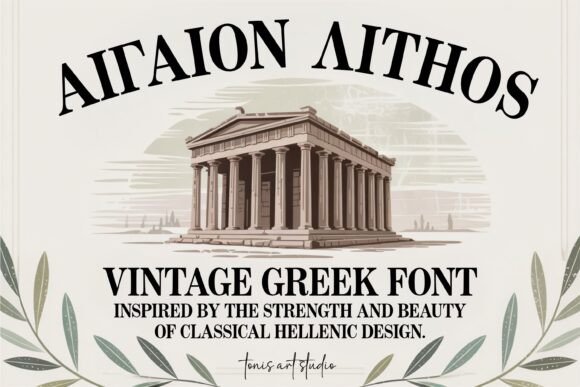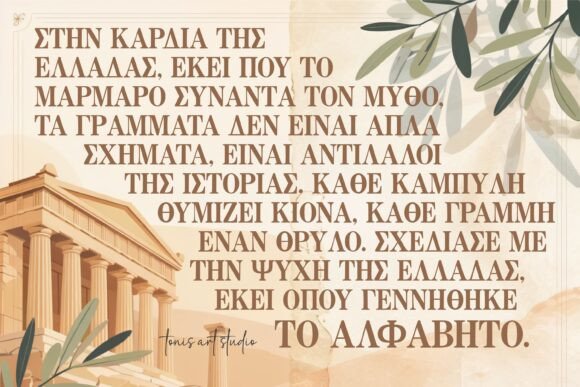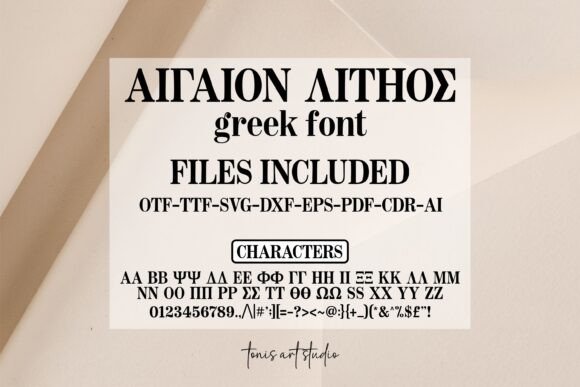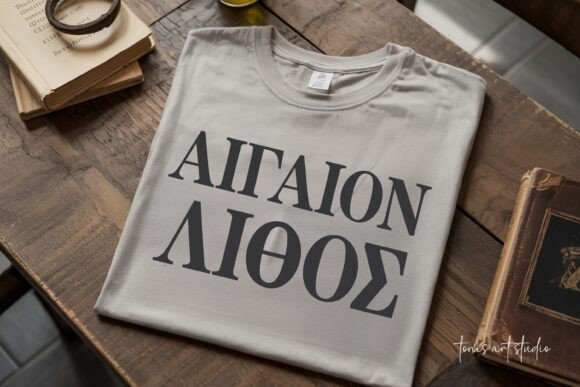
Aegean Stone Font
Crafted with precision, the Aegean Stone Font is ready to bring your ideas to life. Experience the charm and aplomb of antiquity with Aegean Stone, a serif font steeped in Greek artistry. Harkening back to the grandeur of classical Hellenic aesthetics, this font is infused with uppercase Greek letters, numbers, and symbols – your ideal choice for creating iconic branding, arresting logos, distinctive packaging and any Greek-fusion projects. Lending a bold, ageless, and compelling streak to your design canvas, Aegean Stone comes in a wide variety of file formats like OTF, TTF, SVG, DXF, EPS, PDF, AI, and CDR, ensuring seamless compatibility across diverse platforms. Embrace Aegean Stone – an invitation to etch your designs with the potency of a chisel against stone!